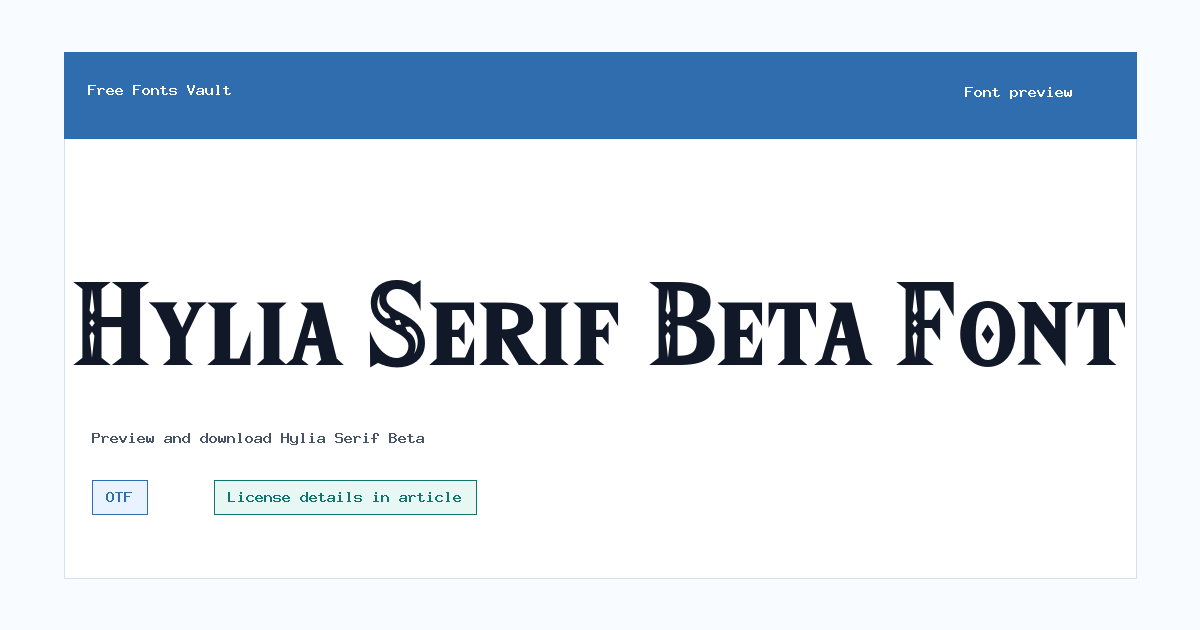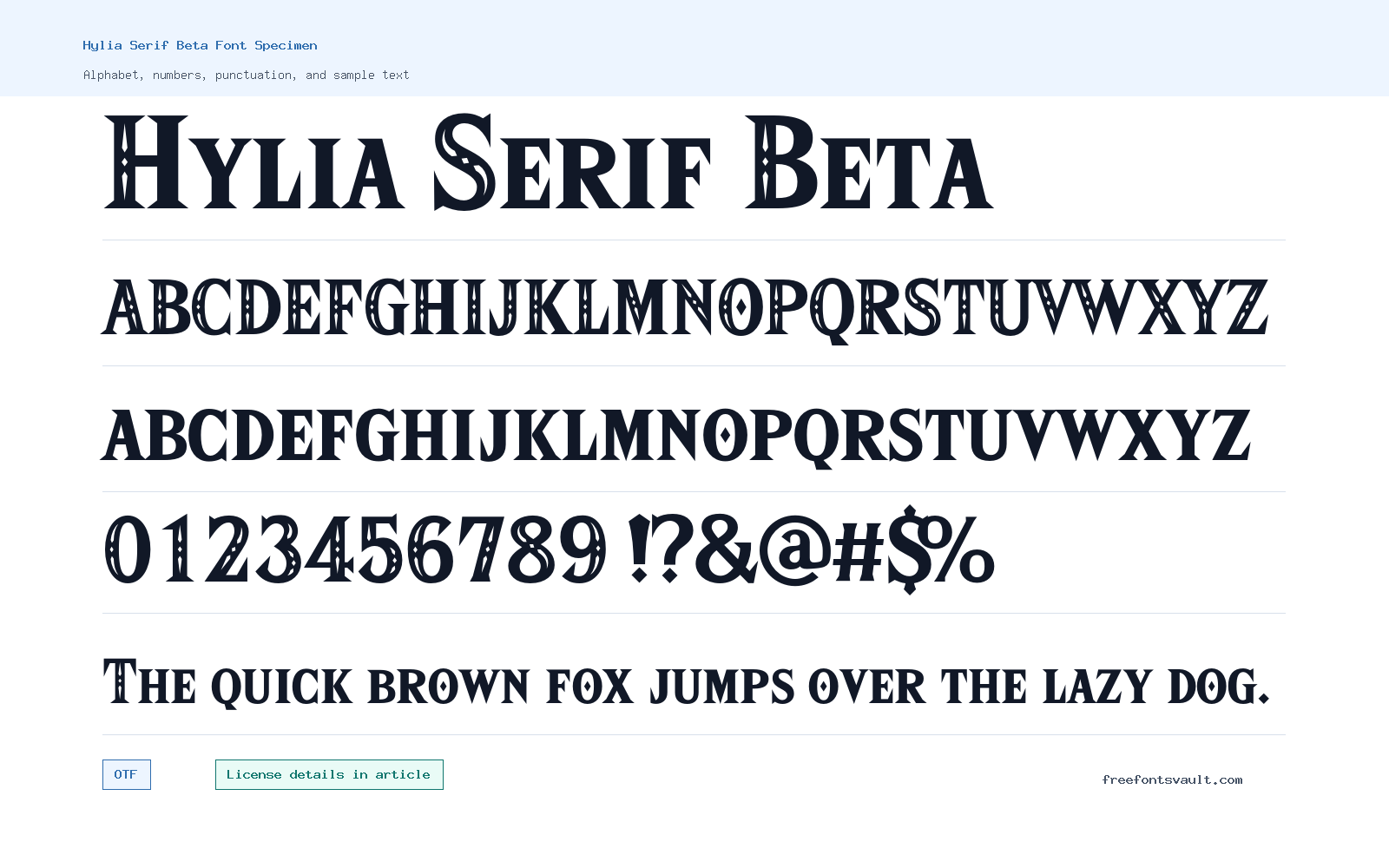
Hylia Serif Beta
Hylia Serif Beta font.
Hylia Serif Beta is a decorative serif font with a fantasy-leaning look and a single Regular OTF file for testing in headings, titles, and short display text.
About Hylia Serif Beta
Hylia Serif Beta works best when you use it as a display face rather than as a long-reading text font. Its serif structure gives words a carved, storybook feel, so it can suit fan art labels, fantasy-themed posters, game-inspired title cards, event graphics, and personal design experiments. Because the name has a game-like feel, it is important to treat it as an independent font download and not as proof of any official brand, game, studio, or trademark connection. Use the preview box to test the exact words you plan to design with, especially if your project uses unusual names, punctuation, or mixed uppercase and lowercase text.
The download listed for this family is HyliaSerifBeta-Regular.otf, with normal style and 400 weight. That means the font page offers one main style rather than a full family with bold, italic, or multiple weights. For clean results, build contrast around it instead of trying to force it into every part of a layout. Pair it with a plain sans serif for body copy, captions, menus, or small labels, and let Hylia Serif Beta handle the main wordmark, headline, or short phrase. If you are making thumbnails, posters, or social graphics, check the spacing at the final size before exporting, since decorative serifs can become crowded when letters are packed too tightly.
- Decorative serif look suited to short titles, fantasy-style headings, and display text
- Personal posters, fan projects, title cards, and themed graphics
- Short headlines, names, labels, thumbnails, and display previews
Use Hylia Serif Beta where the text can stay large and short. Test your wording in the preview first, then check letter spacing, punctuation, numbers, and readability at the size you plan to use. For longer paragraphs, navigation text, or small mobile labels, choose a simpler companion font and keep this one for the main display moment.
What is Hylia Serif Beta best used for?
It is best for short display text such as headings, fantasy-themed titles, posters, thumbnails, and personal creative graphics.